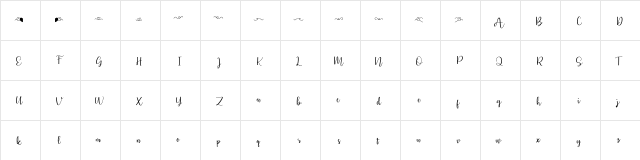
MiloBely Regular Font Preview
MiloBely Regular
MiloBely Regular Font Details
Design Context for MiloBely Typeface
MiloBely is a composed and adaptable typeface that performs quietly and consistently across a wide range of design contexts.